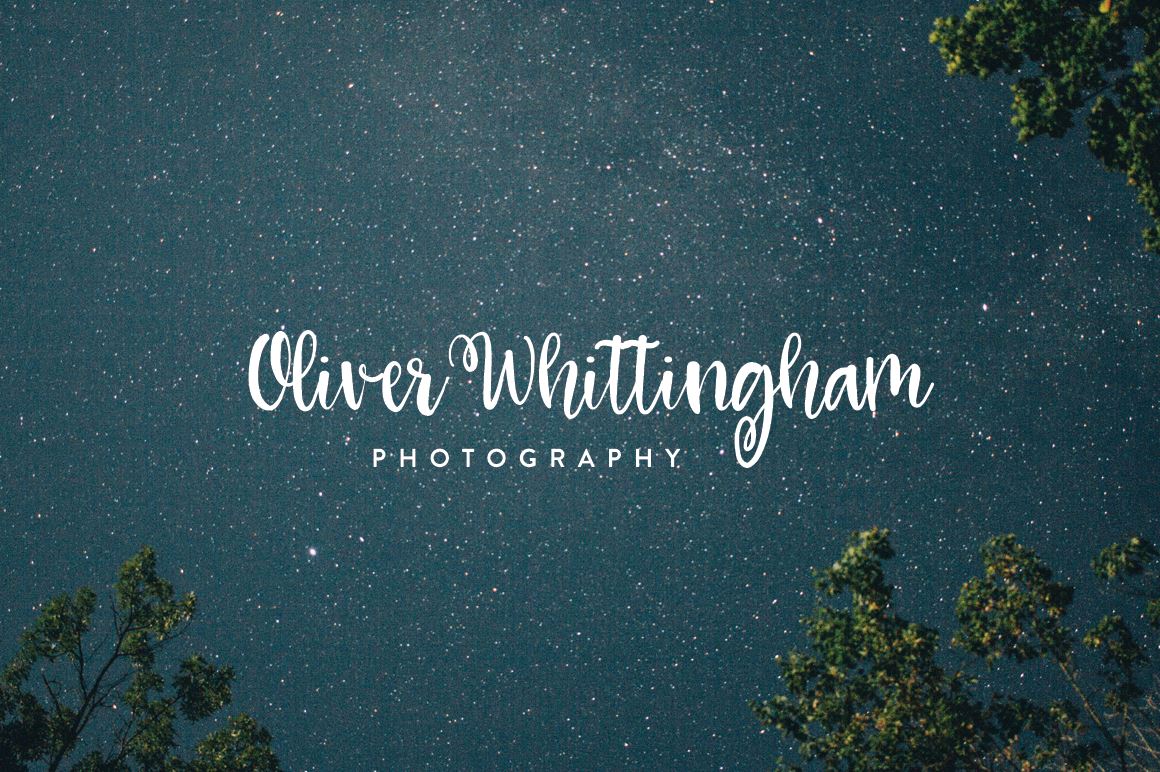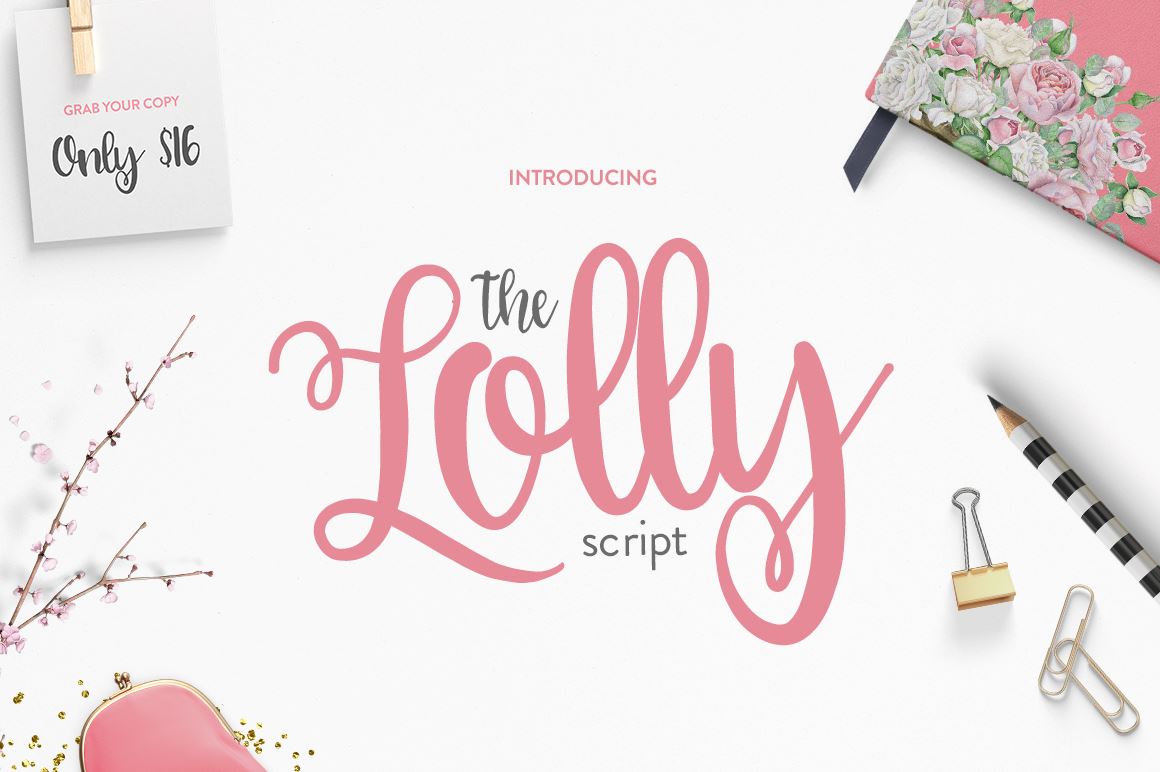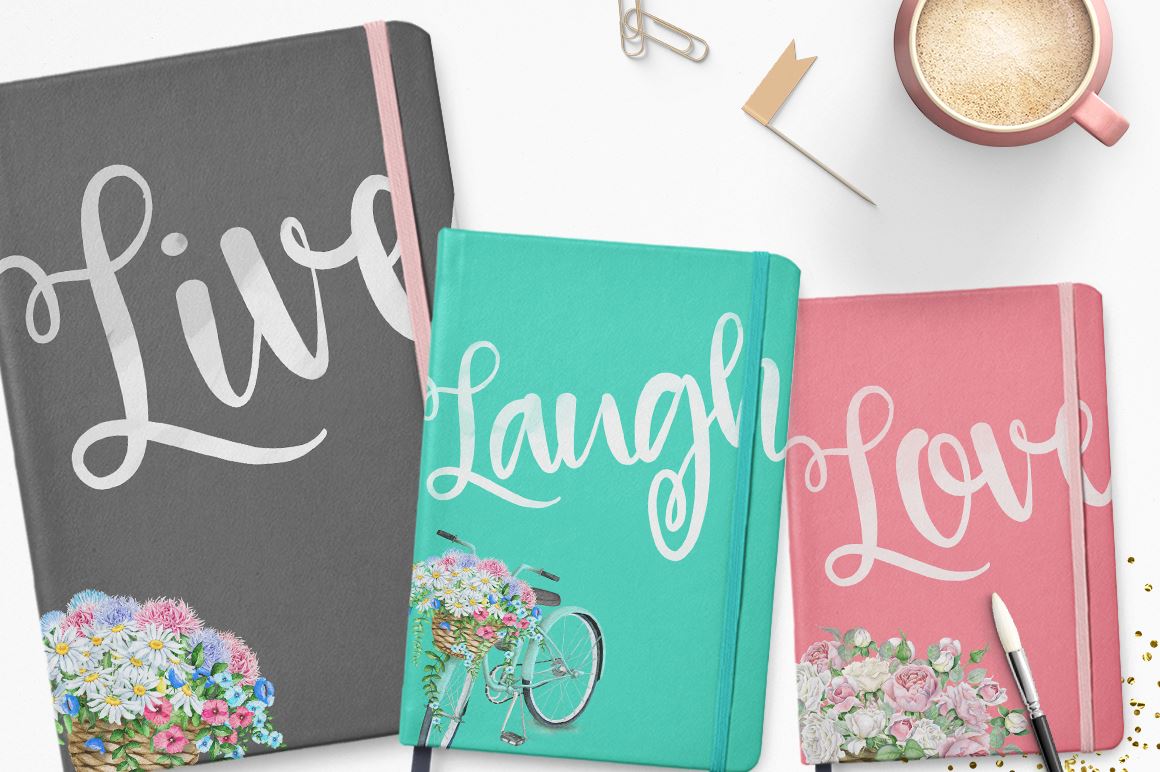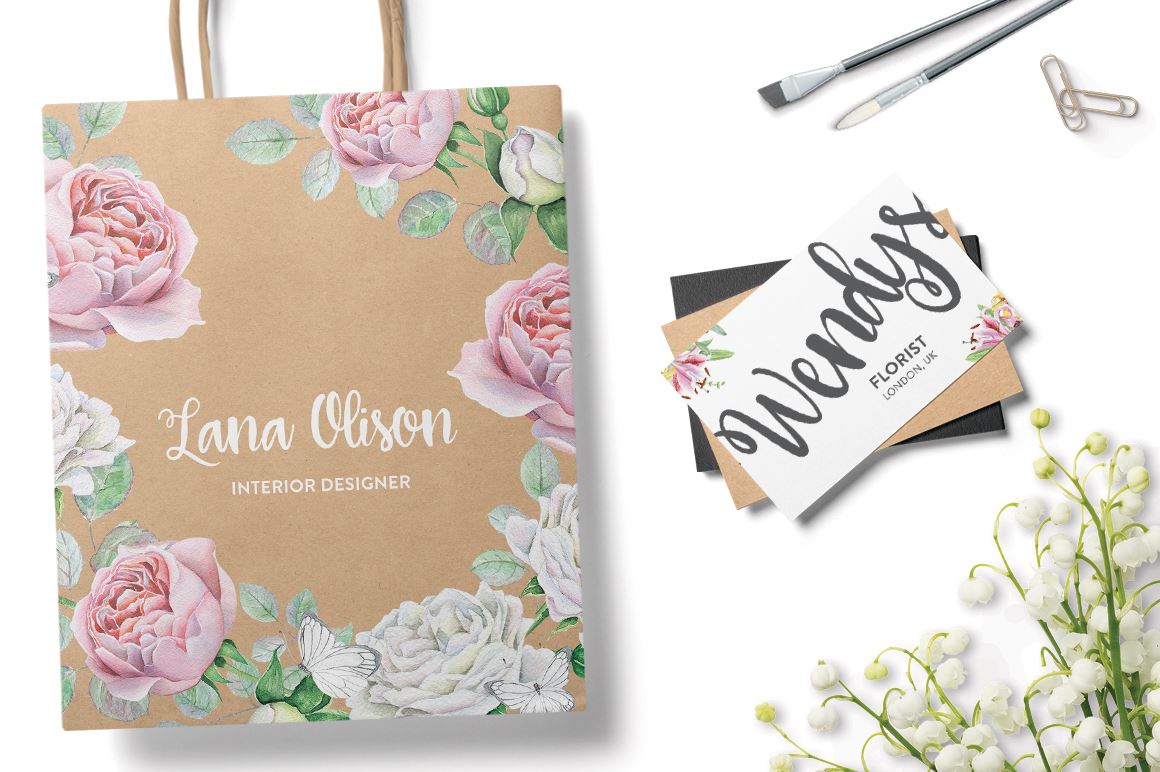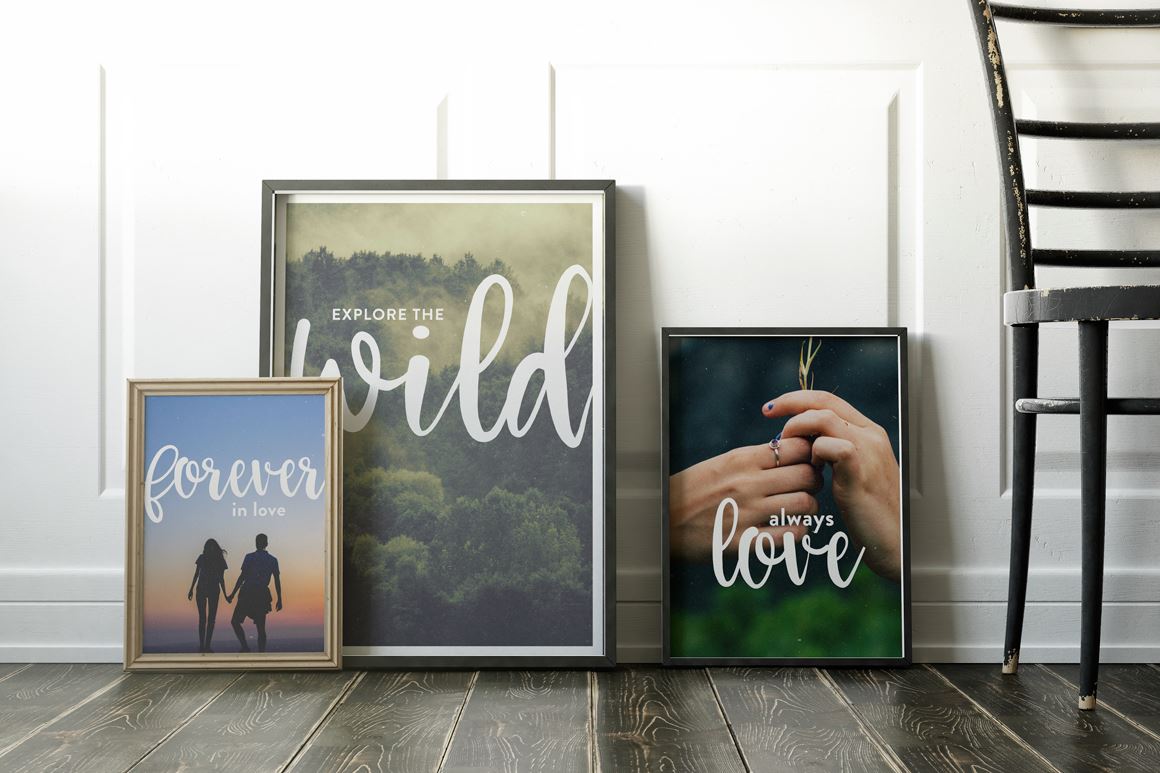
A Lolly Script
The Lolly Script is a brand new thick script based font. Available for both personal and commercial use. No extended license is required. Download and use The Lolly Script for anything and everything. This font is 100% accessible to all, across all programs and includes over 100 different glyphs. WHATS INCLUDED? Lolly Script.otf Lolly Script.ttf Web fonts included (EOT, SVG, WOFF & WOFF2 Files) Download within a few clicks and use across a huge range of programs including Microsoft Word, Silhouette, Cricut, Photoshop, Illustrator and many more. If you have any questions at all, please don’t hesitate to get in contact with us.